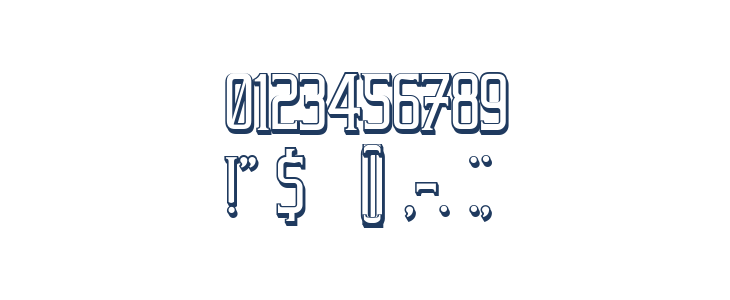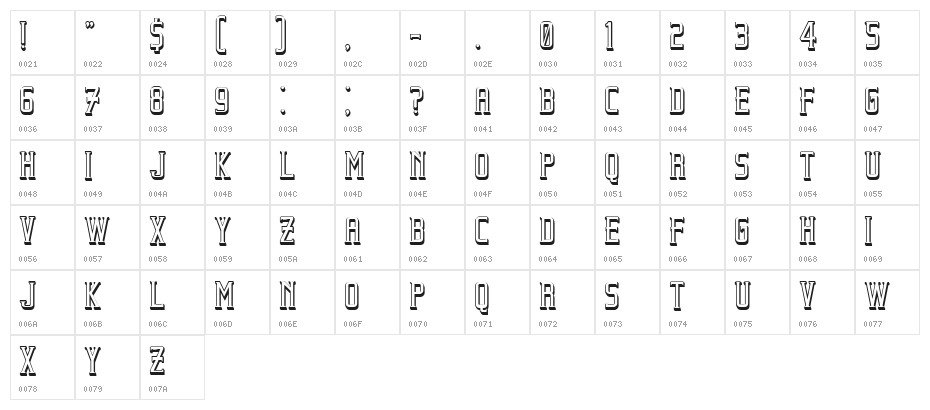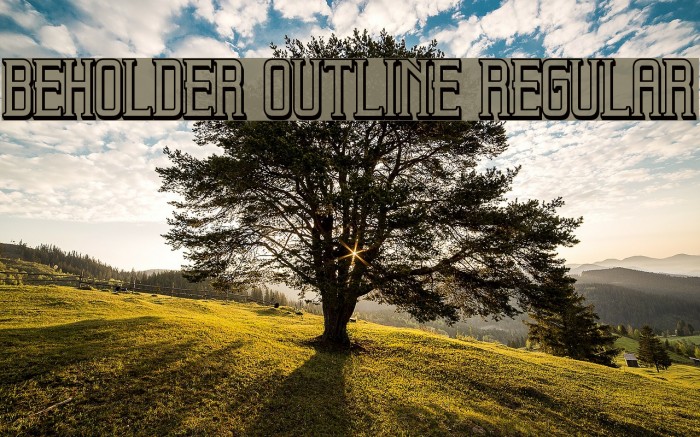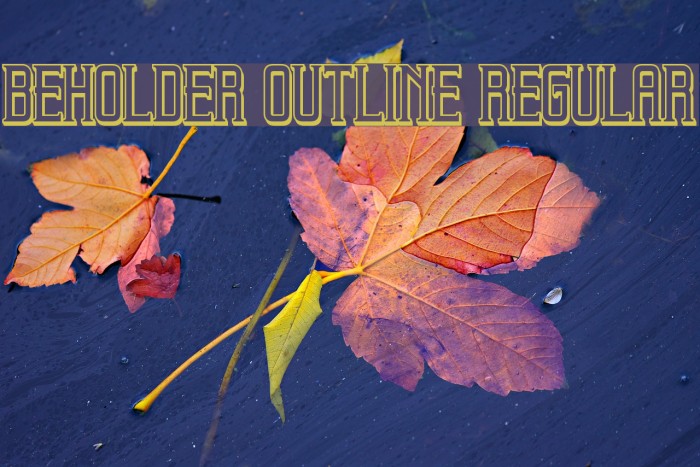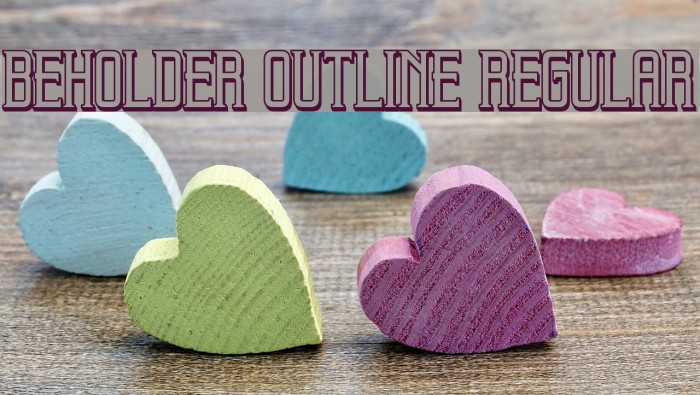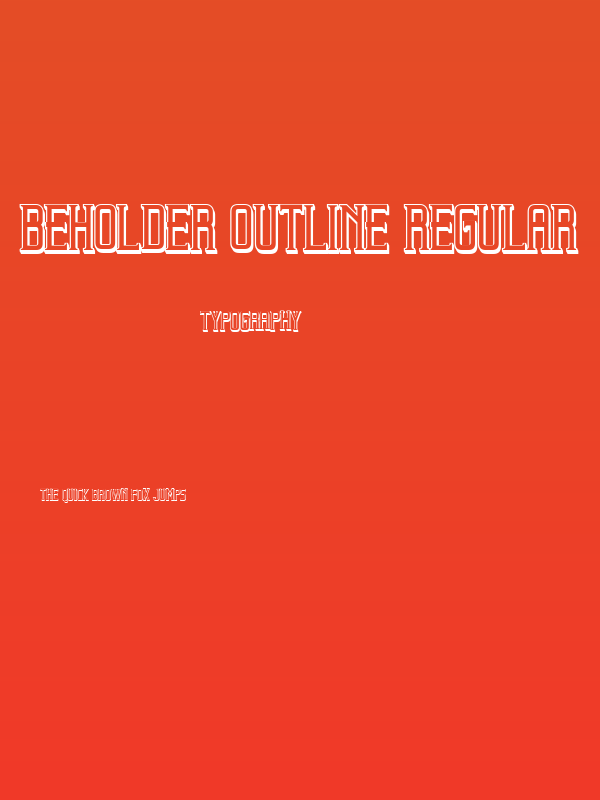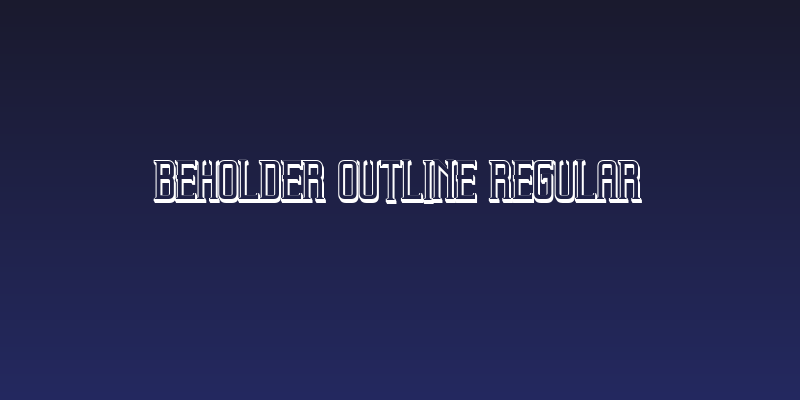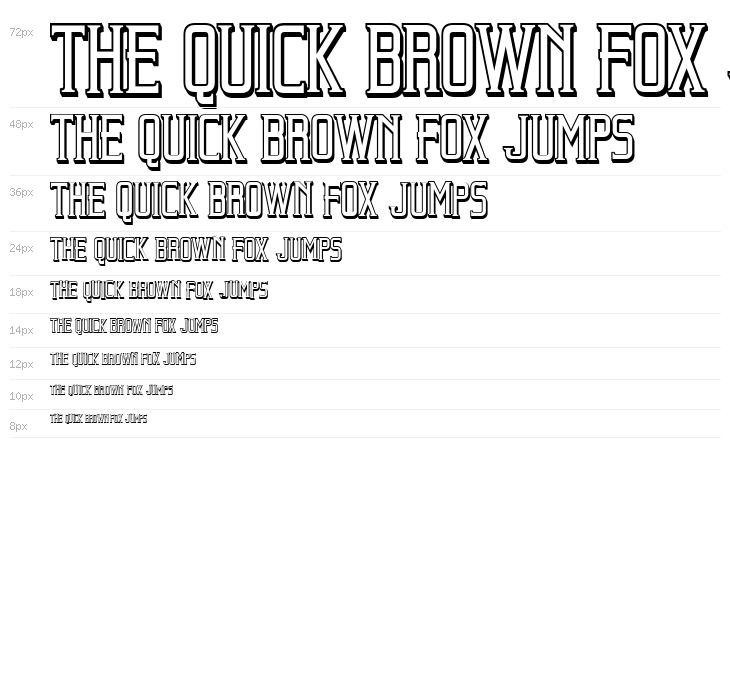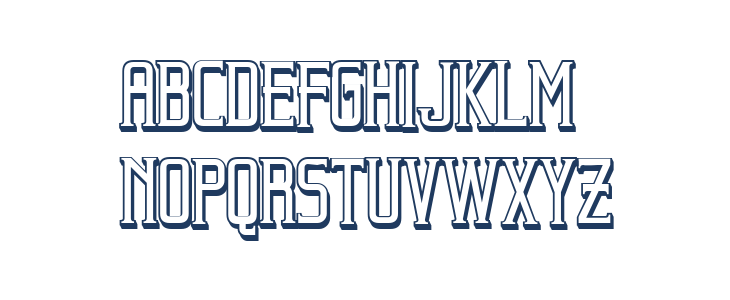
Beholder Outline Regular Font
Beholder Outline Regular Description
This font features a bold, outlined style that gives it a striking and modern appearance. The characters are uppercase and maintain a consistent height, with a geometric structure that emphasizes straight lines and sharp angles. The outline effect creates a sense of depth and dimension, making the letters stand out against any background. This font is highly legible and versatile, suitable for a variety of design applications. The spacing between characters is normal, ensuring readability while maintaining a cohesive look. The font's unique style makes it ideal for projects that require a contemporary and eye-catching aesthetic.
| Proposed Projects | Ideal for headlines, posters, branding, and any design needing a modern, standout look. |